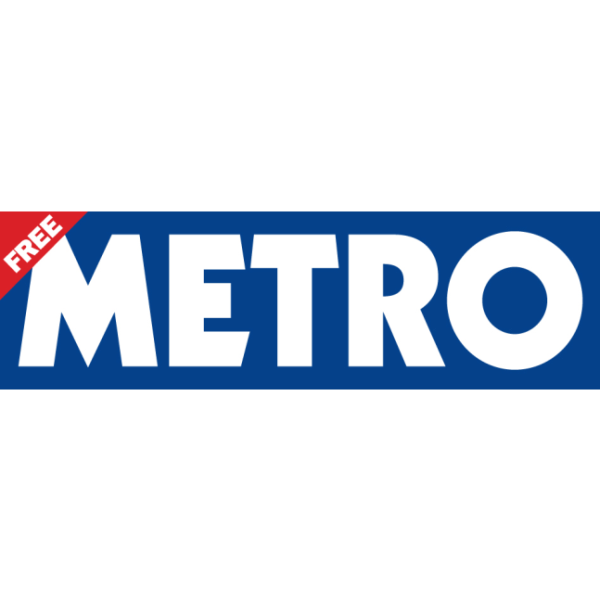
Metro Font
Fonts in UseMetro is a popular free tabloid newspaper that is distributed every weekday morning at commuter railway stations in major towns and cities across the UK.
The nameplate of the newspaper is set in Kabel Black, a typeface designed by German type designer Rudolf Koch. Kabel is a geometric sans-serif design that was influenced by the Bauhaus movement and is one of the earliest of its kind. Further information about Kabel Black can be accessed here. For the “FREE” tag on the logo, it is probably set in Franklin Gothic Heavy.